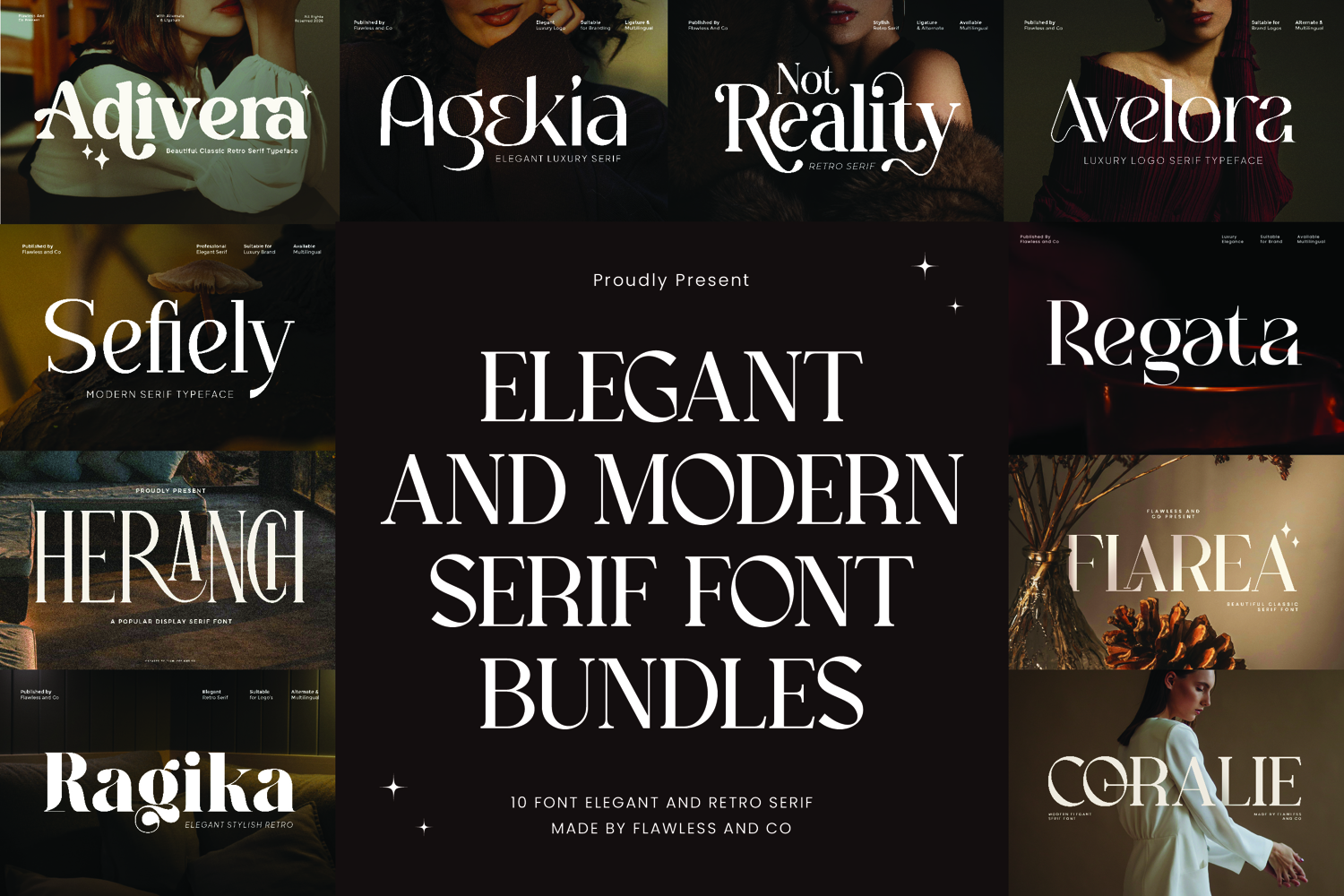
Elegant Modern Serif Bundle
Introducing the “Elegant Modern Serif Font Bundle,” a refined collection of serif fonts designed to bring sophistication, balance, and modern elegance to your creative projects. Each font in this bundle features graceful serif details, stylish letterforms, and carefully crafted proportions that create a timeless and professional typographic appearance.
These fonts blend modern design with classic serif aesthetics, making them perfect for projects that require elegance, clarity, and a luxurious visual style. Whether you're working on branding, editorial layouts, packaging, or digital designs, this bundle offers versatile serif fonts that elevate the overall look of your typography.
This bundle includes 10 high-quality modern serif fonts that are carefully designed for professional and creative use. They are suitable for various design purposes such as branding materials, logos, magazines, posters, photography overlays, quotes, packaging, business cards, and more.
• Alternates & Ligatures
Perfect For:
• Luxury branding and logo design
• Editorial layouts and magazine headlines
• Fashion and beauty branding
• Packaging and product labels
• Wedding invitations and stationery
• Social media graphics
• Website headers and digital design
• Quotes and photography overlays
• Creative display typography